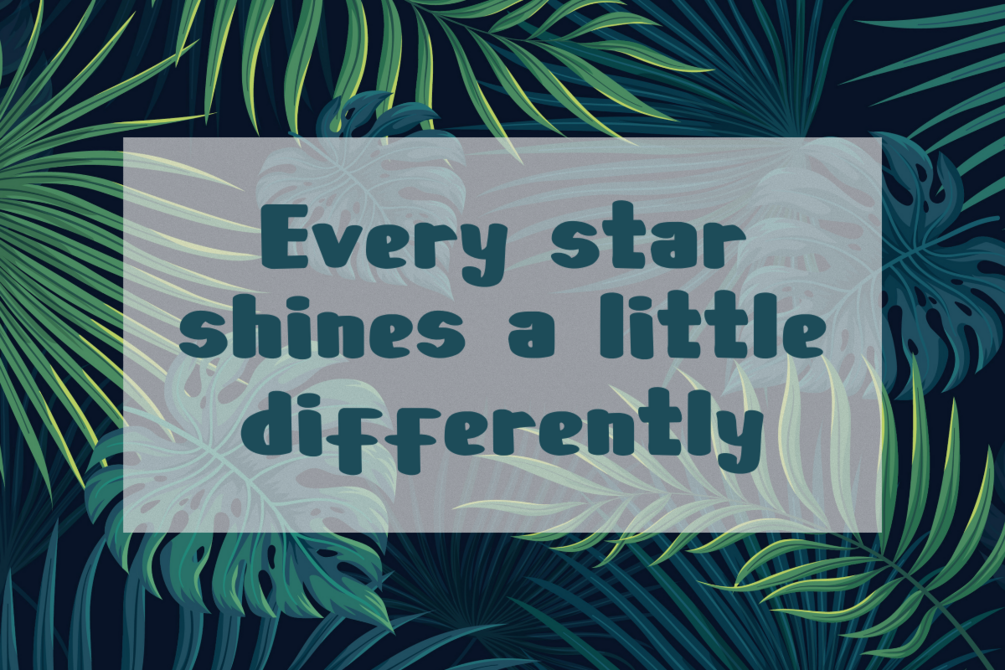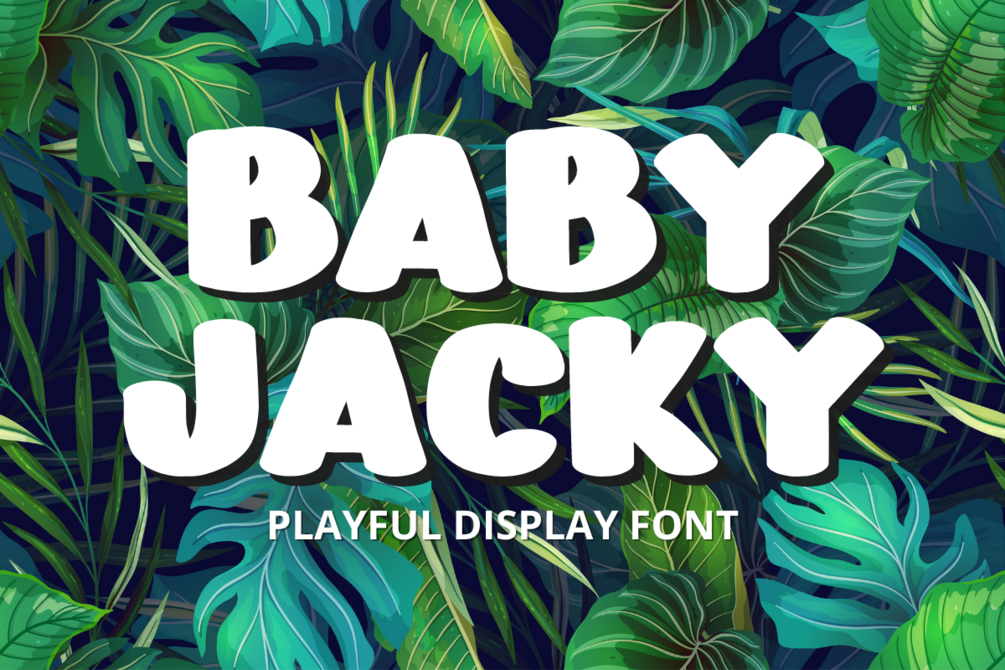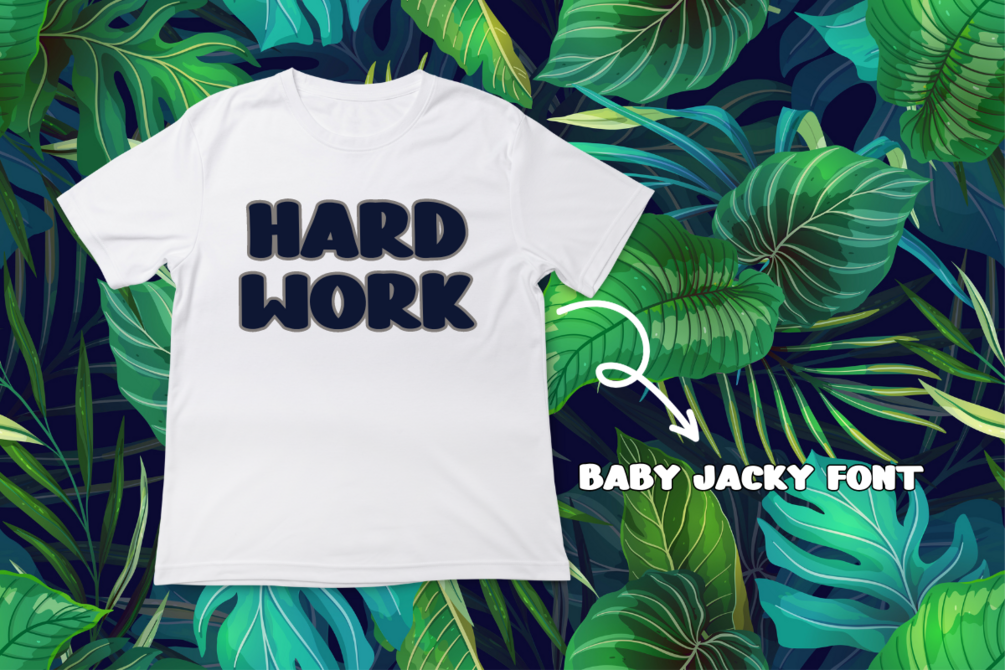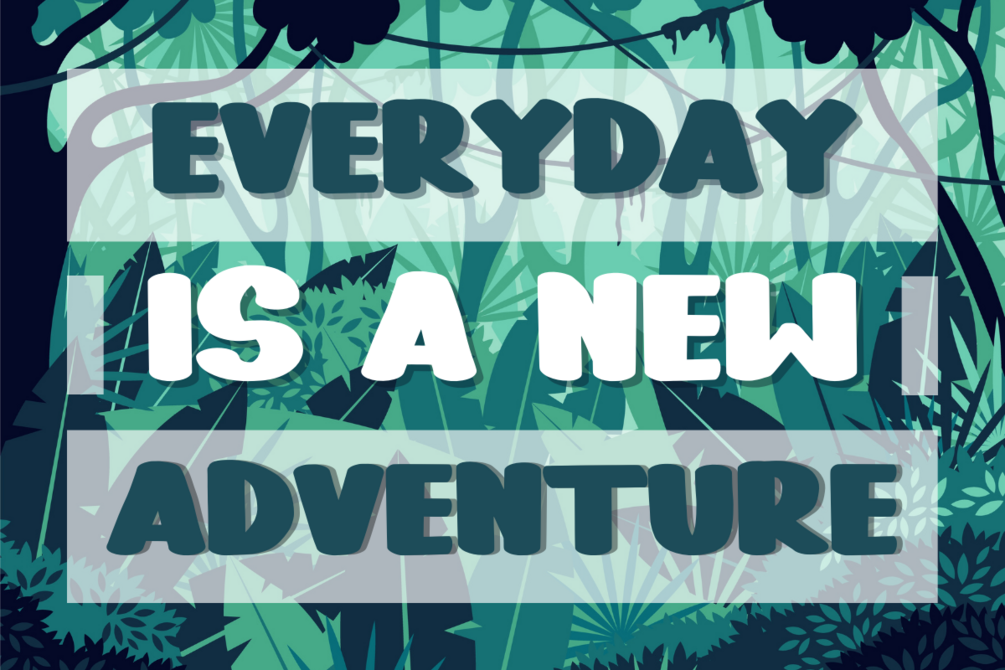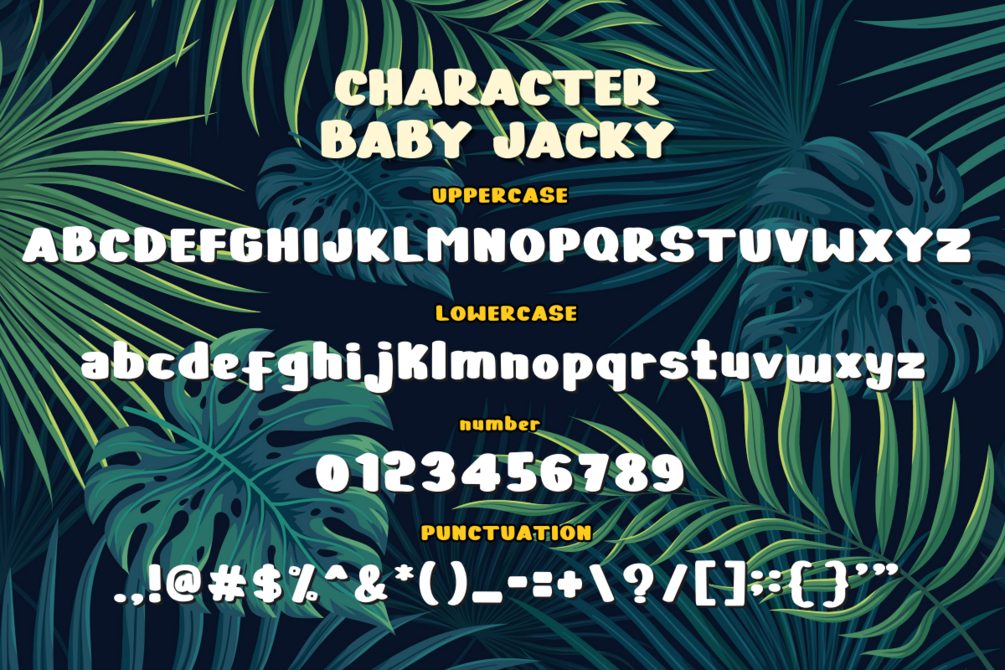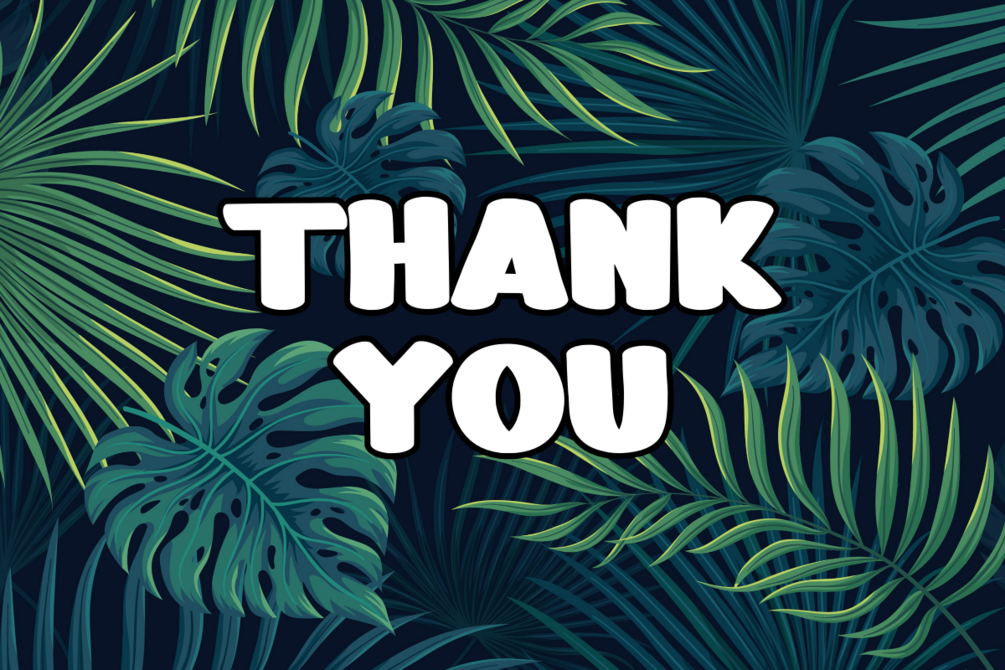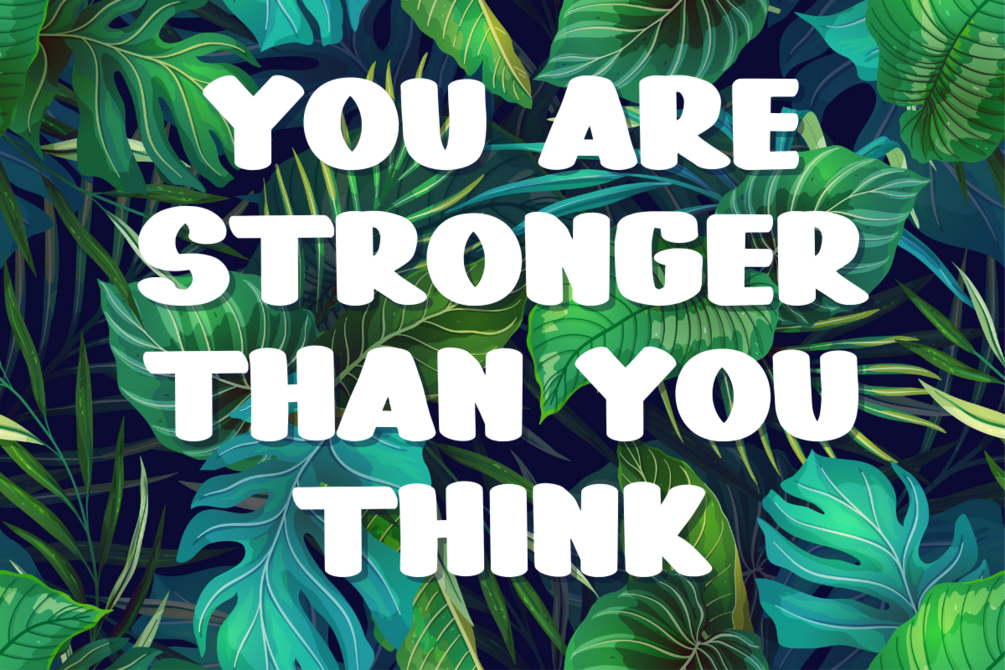
Baby Jacky - Playful Display Font
Baby Jacky is a cool, bold display font. Add this bold font to your design and watch how it brings it to life. Get inspired by her unique and beautiful style and add it to your favorite designs!